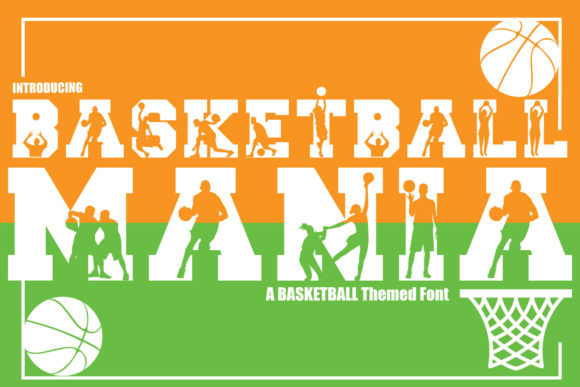
Unleash the Dynamic Essence of Basketball Mania: A Font That Captivates Youthful Spirits
In the realm of digital aesthetics, few elements hold the power to ignite imagination and evoke emotions like fonts. Basketball Mania, a creation of the esteemed KtwoP, is not just a font; it's a gateway to a world of boundless creativity, crafted specifically for websites that resonate with the vibrant energy of youth.
Picture this: a font that seamlessly blends the playful spirit of basketball with the boundless imagination of children. Its bold strokes and dynamic curves dance across the screen, captivating the eyes and igniting a sense of wonder. Basketball Mania is more than just a collection of letters; it's an invitation to embark on a journey of self-expression and storytelling.
Whether you're crafting a website dedicated to the love of basketball or creating an online space that celebrates the boundless energy of kids, Basketball Mania is the perfect font to bring your vision to life. Its playful and energetic style adds a touch of whimsy and excitement to any design, inviting users to engage and explore.
Imagine the smiles on the faces of young visitors as they navigate your website, their eyes drawn to the captivating designs created with Basketball Mania. This font has the power to transform ordinary text into captivating narratives, enhancing the overall user experience and leaving a lasting impression.
Don't miss out on the opportunity to infuse your website with the infectious energy of Basketball Mania. Embrace the chance to create a digital playground where imagination thrives and creativity knows no bounds. Let Basketball Mania be your creative partner, guiding you towards a design that captures the essence of youthfulness and leaves an unforgettable mark on your audience.